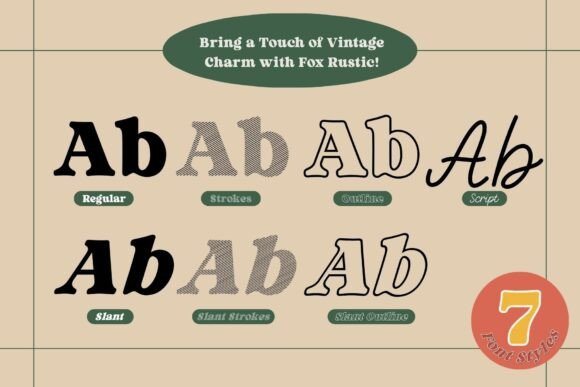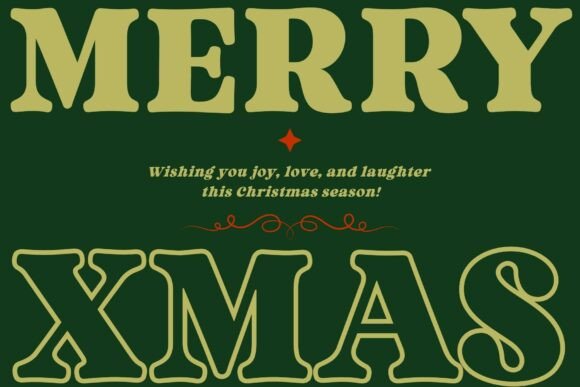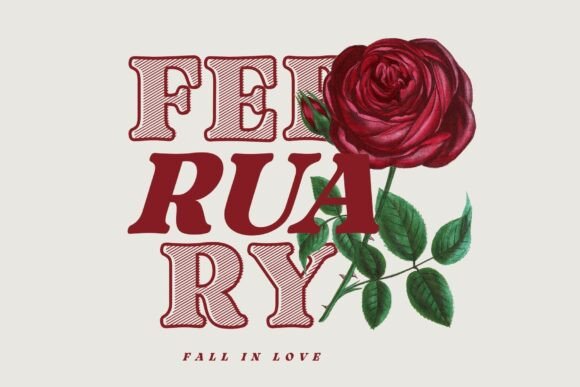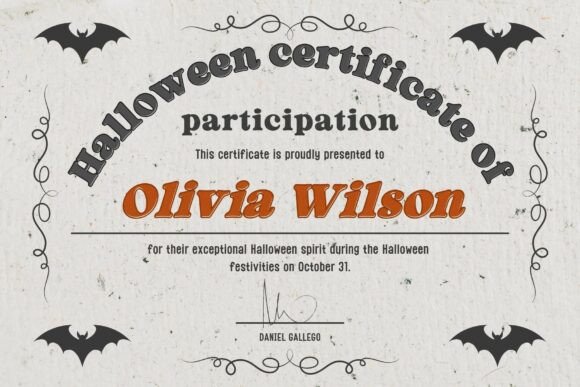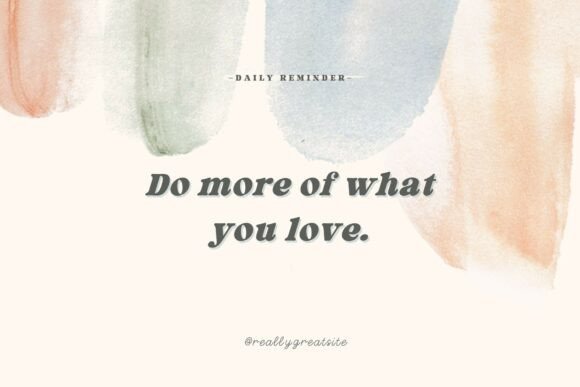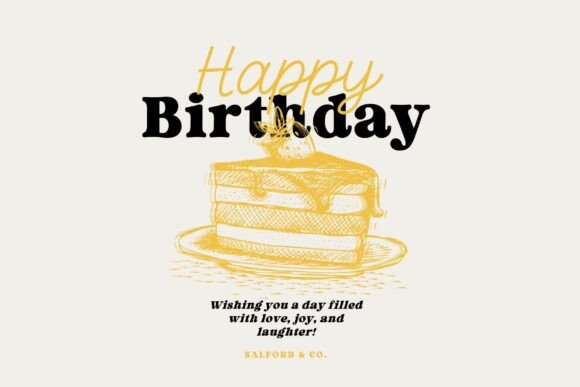
Bringing Rustic Charm to Your Designs with Fox Rustic Font
I’ll never forget the design project that led me to discover Fox Rustic Font. I was working on a branding project for a cozy farmhouse bakery, and I was struggling to find the perfect font that captured the warm, inviting feel of their products. The client wanted something that felt handmade, yet elegant. After hours of searching, I stumbled upon Fox Rustic, and it was love at first sight! 💕
A Personal Review of Fox Rustic Font
So, what makes Fox Rustic so special? Let’s dive into the good stuff! 😊
- ✨ Unique texture and character: Fox Rustic combines classic elegance with playful hand-drawn textures, giving your designs a one-of-a-kind feel.
- ✅ Versatile and bold: This font family is perfect for creating eye-catching headlines, logos, and titles that demand attention.
- 💡 Easy to read: Despite its bold and textured nature, Fox Rustic remains surprisingly legible, even at smaller font sizes.
Of course, no font is perfect, and Fox Rustic has a few minor quirks to consider:
- ⚠️ Limited use in body text: Due to its bold and textured nature, Fox Rustic might not be the best choice for lengthy body text. Instead, use it for headlines and titles.
- 🤔 Glyph coverage: While Fox Rustic has a wide range of glyphs, it might not cover every special character or language. Be sure to check the font’s capabilities before using it in your project.
- Explore the font’s OpenType features, such as Stylistic Alternates and Glyphs, to add more variety to your design.
The Story Behind Fox Rustic Font
Fox Rustic was designed with a passion for handcrafted charm and a love for vintage typography. The font’s creator aimed to capture the warmth and character of traditional craftsmanship in a digital font. The result is a unique blend of classic elegance and playful texture that’s perfect for designs that need a cozy, retro feel.
- Q: What type of designs is Fox Rustic best suited for?
- A: Fox Rustic is perfect for projects that need a cozy, retro feel, such as farmhouse signs, coffee packaging, logo designs, posters, and invitations.
- Q: Does Fox Rustic support OpenType features?
- A: Yes, Fox Rustic supports OpenType features, including stylistic alternates and glyphs. You can access these features in compatible design software, such as Adobe Creative Cloud.